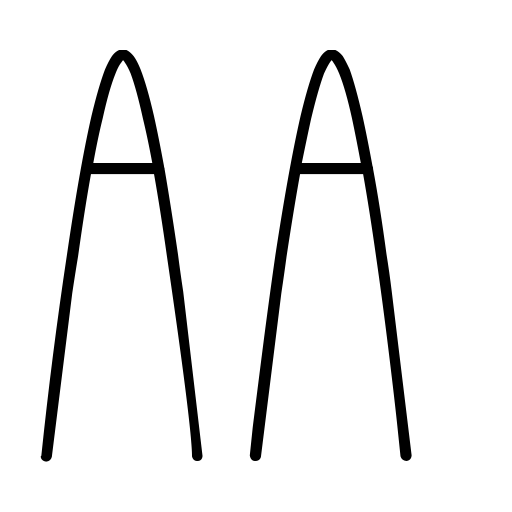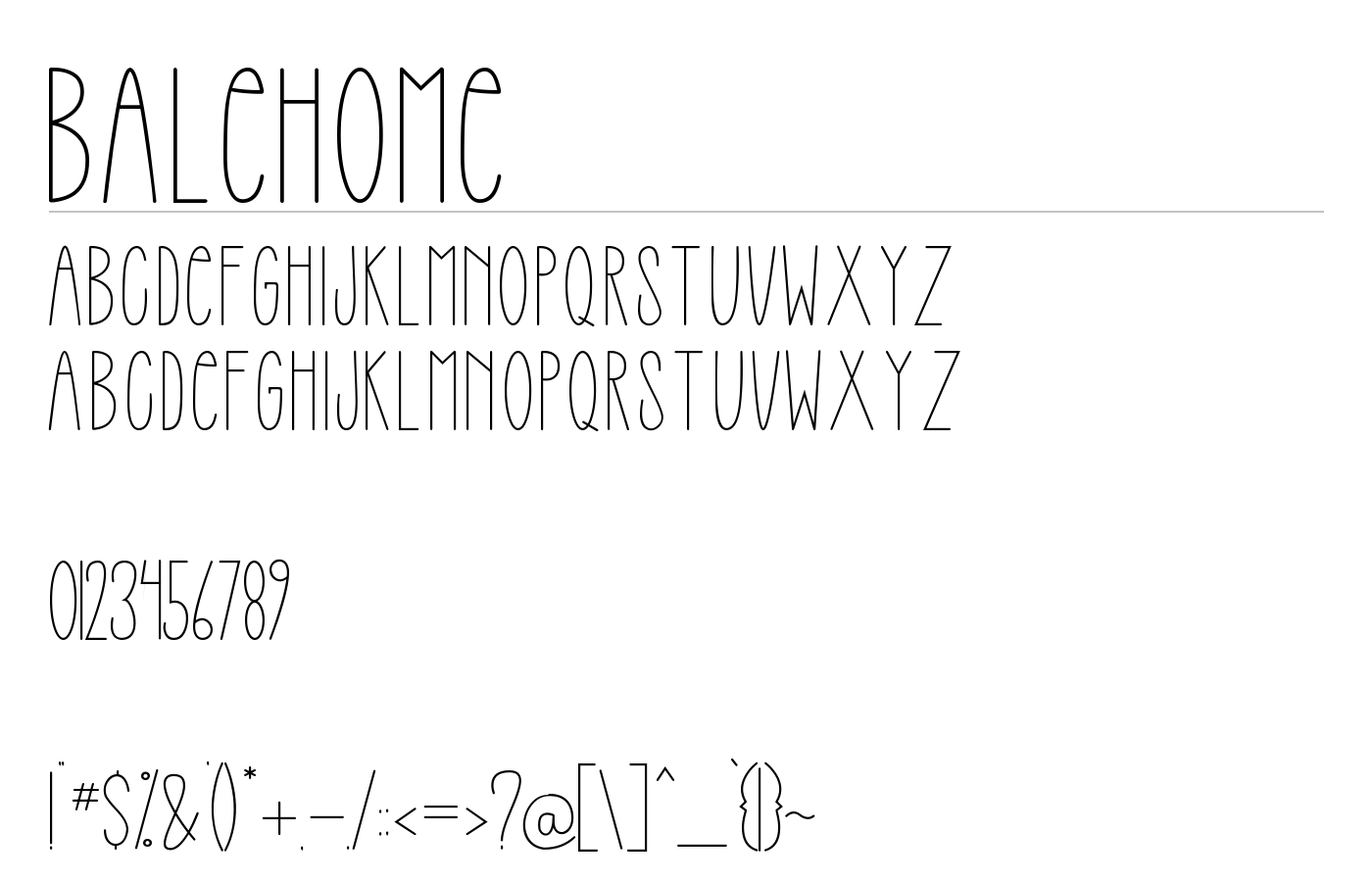
BALEHOME is a playful and quirky sans serif font characterized by its tall, narrow letterforms and delicate, even stroke weight. Its lightly rounded edges and unique character shapes give it a whimsical, friendly feel, making it ideal for creative projects, children’s designs, and informal branding. This font works best in headlines, logos, or packaging where a distinctive, lighthearted touch is desired.
BALEHOME Font
About BALEHOME Font